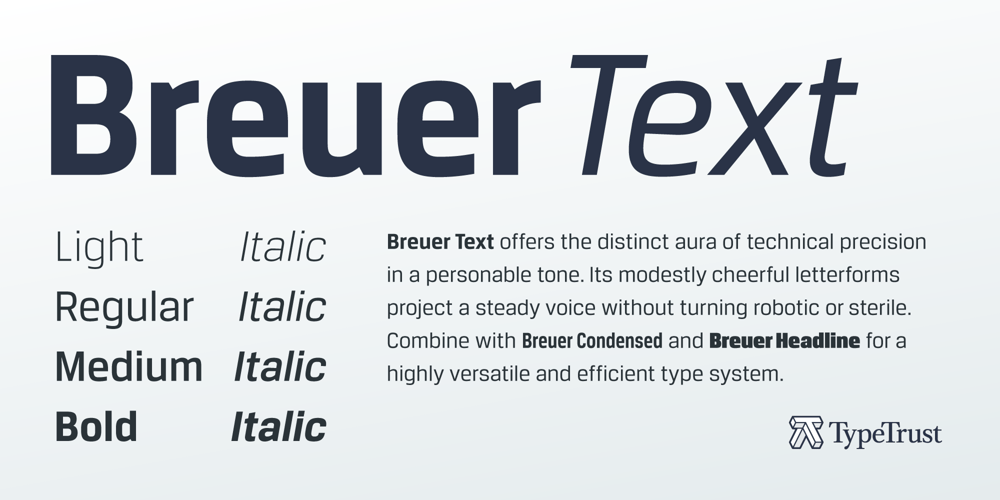
Breuer Text
Breuer Text font
Breuer Text Font Family was designed by Silas Dilworth and published by TypeTrust. Breuer Text contains 8 styles and family package options. Breuer Text is a simple geometric sans with relaxed curves and slightly condensed proportions suitable for moderate lengths of body copy. The italics are optically adjusted obliques with a selection of augmented lowercase glyphs for a warmer read. Breuer Text offers the distinct aura of technical precision in a personable tone, ideal for instructional copy or safety warnings. Its basic structure and conservative letterforms maintain a level voice without turning robotic or sterile. Pair with the two-font Breuer Headline family for a simple and complete editorial type system. Breuer Text includes Small Caps, Old Style Figures and Tabular Figures.